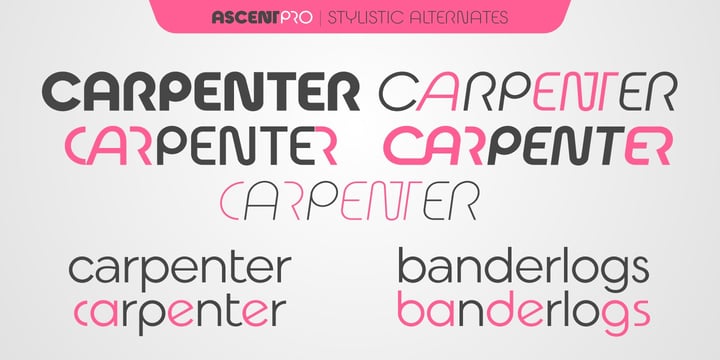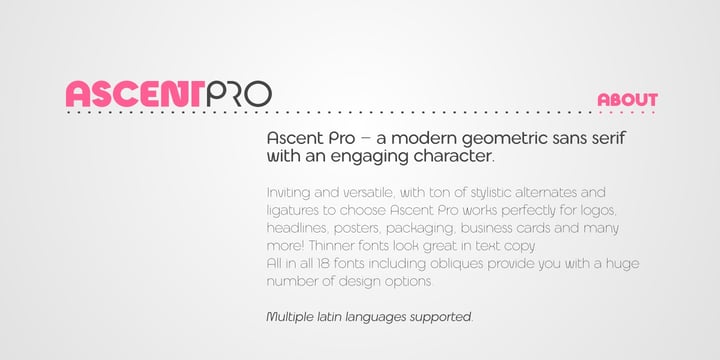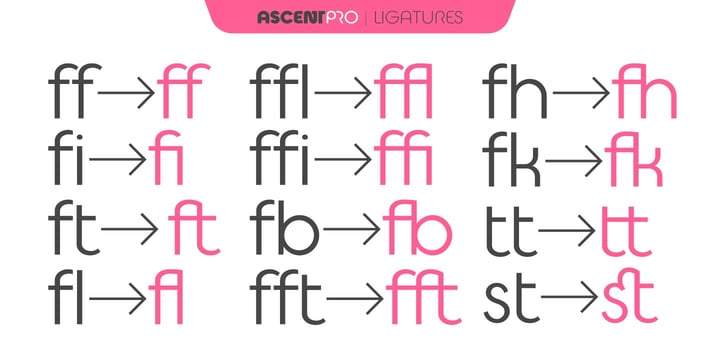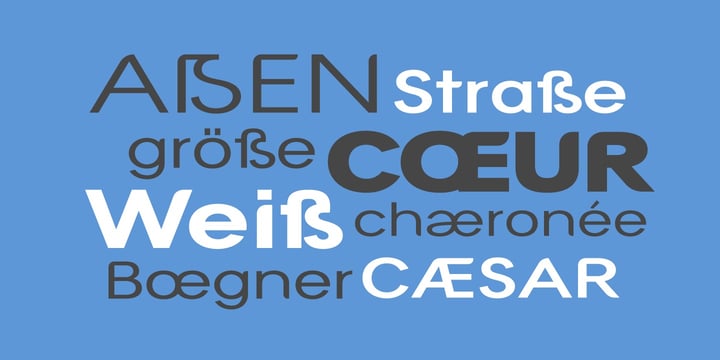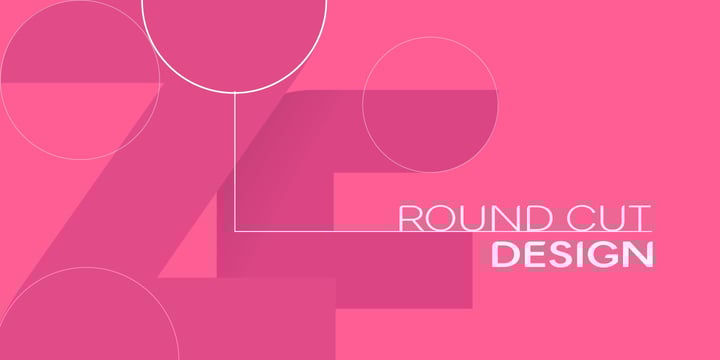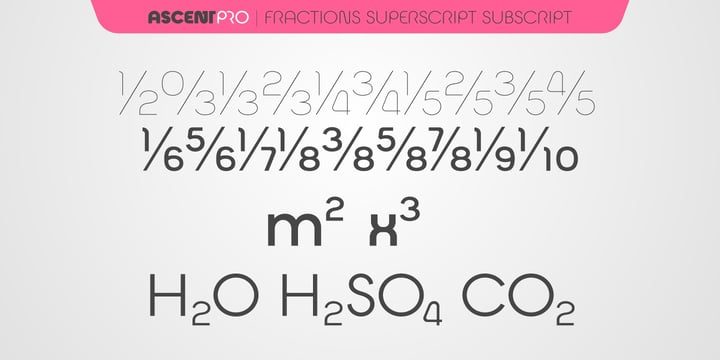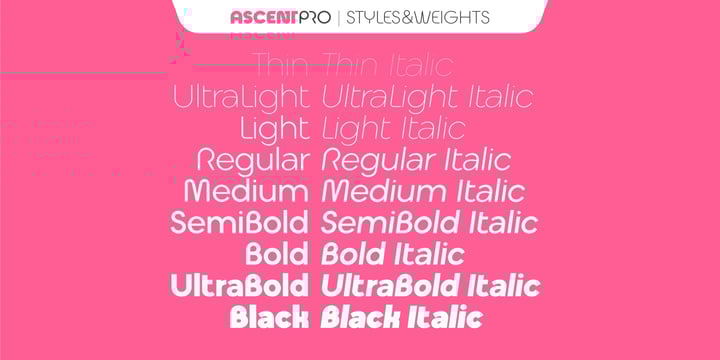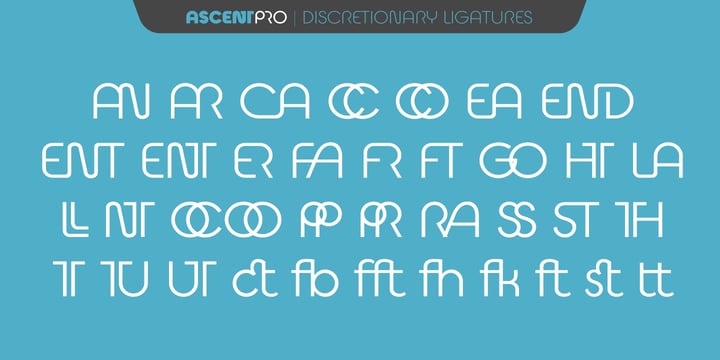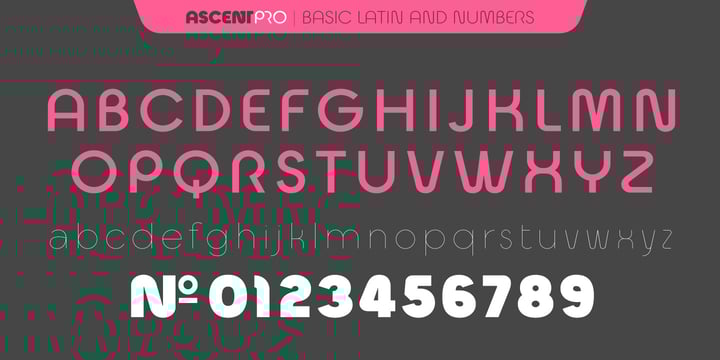
Modern Sans Collection
Modern Sans Collection is a curated bundle of contemporary sans serif typefaces designed for versatility and modern visual communication. This collection brings together a selection of clean, stylish fonts with distinct personalities, offering designers a wide range of options for branding, editorial layouts, digital interfaces, packaging, and marketing materials. The fonts in this bundle are not intended to complement each other as pairs, but rather to function as standalone tools, allowing you to choose the perfect sans serif for each project. From minimal and neutral styles to more expressive modern designs, Modern Sans Collection is built for flexibility, clarity, and timeless appeal across print and digital use.